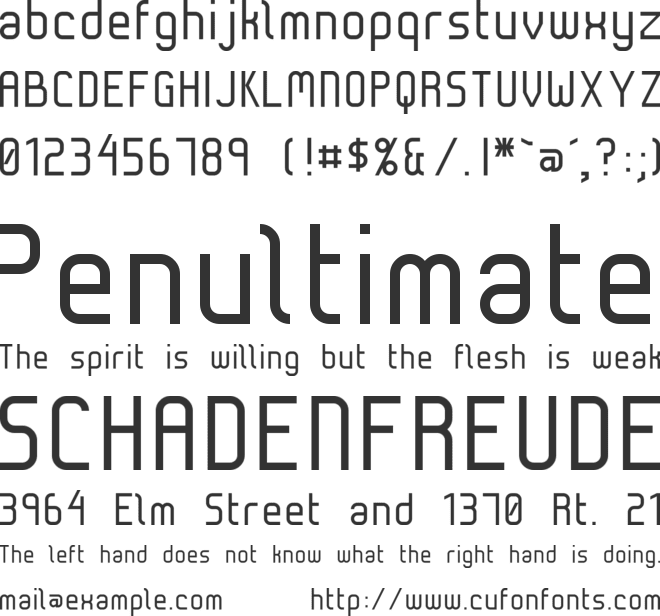
KP Programmer Alternates NBP Font Family
Nate Halley
Plaintext-optimised version of Kernel Panic NBP. Contains an alternate set for headings and titles.